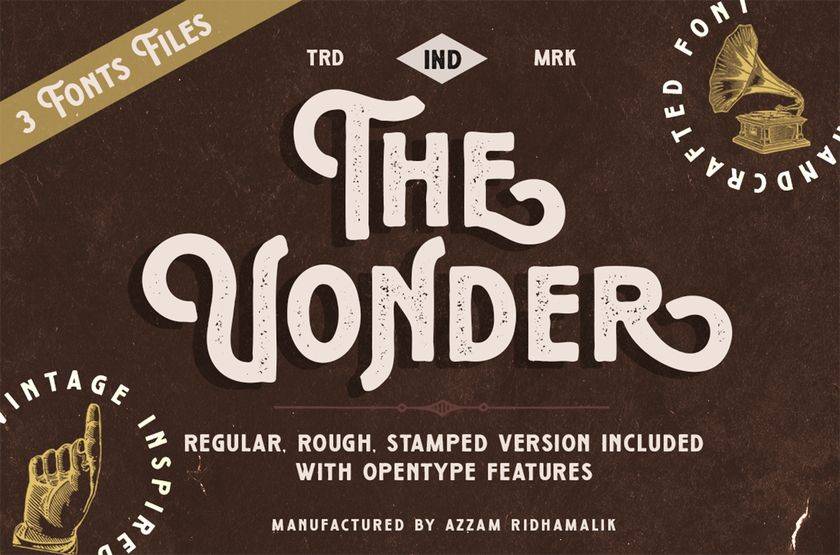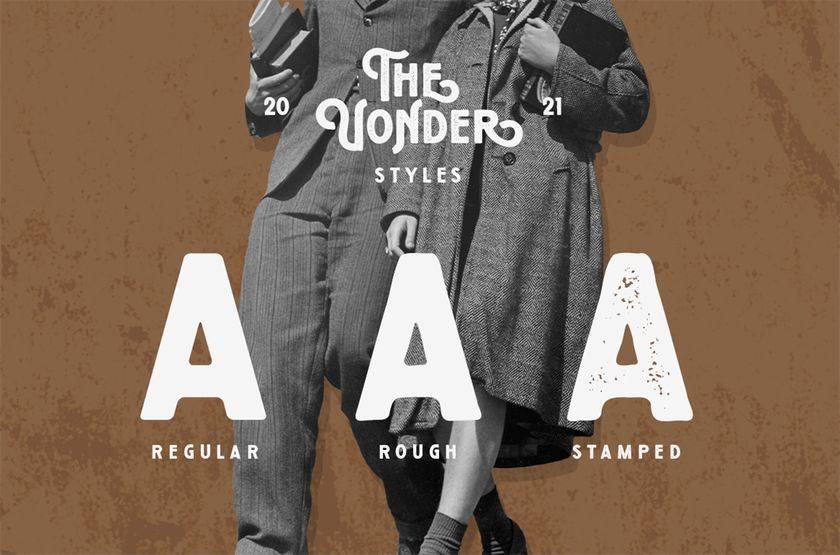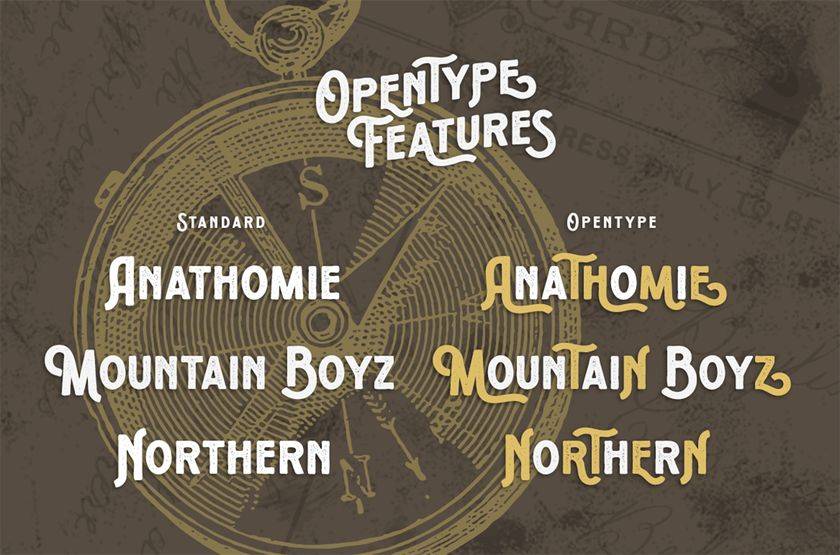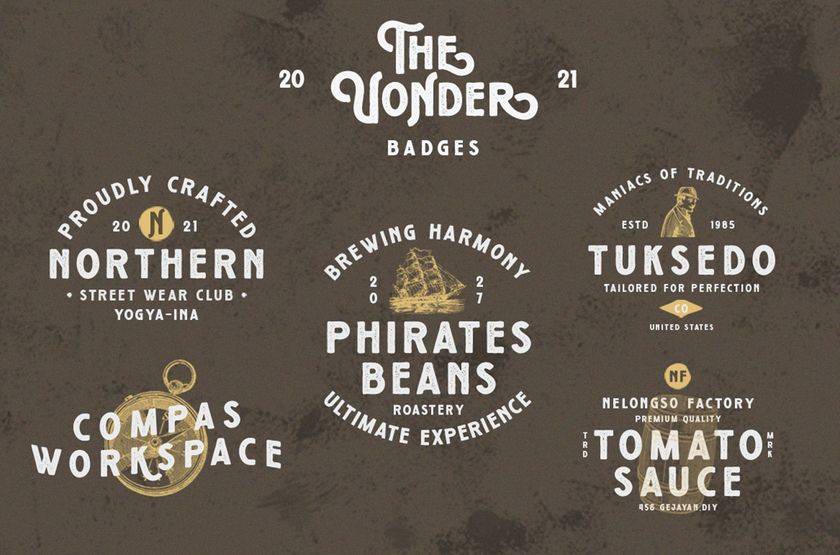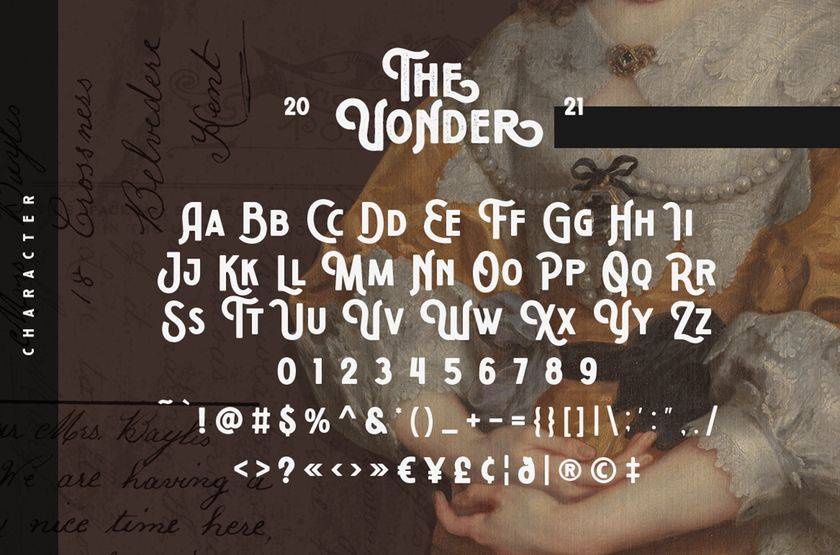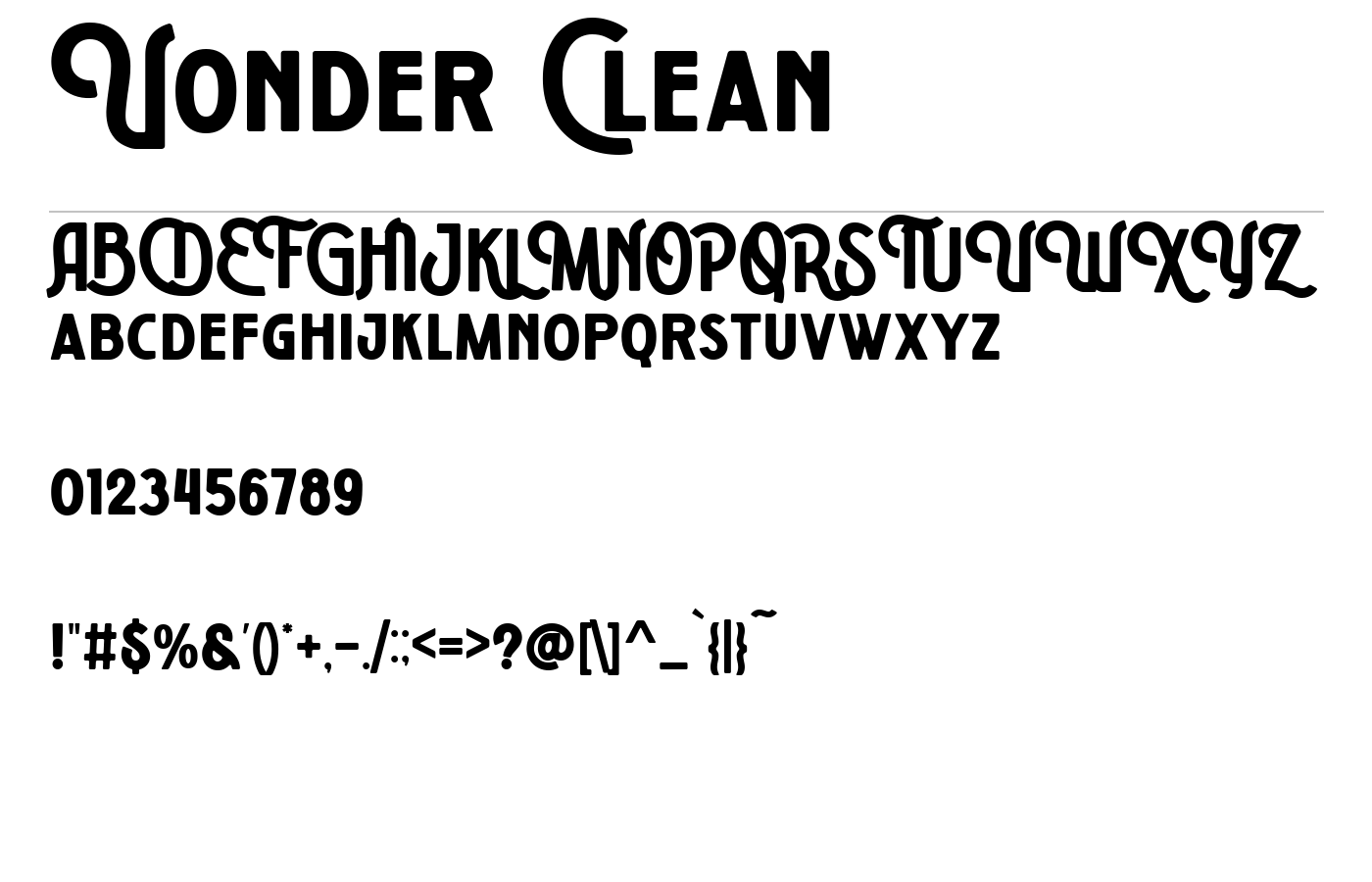
Vonder is a bold sans serif font with a playful, retro flair highlighted by its rounded shapes and quirky alternates in uppercase. Its sturdy, slightly condensed letterforms with consistent stroke weight convey a friendly yet confident personality, making it ideal for eye-catching headlines, logos, and branding that want a vintage yet approachable vibe. This font works especially well for creative projects that balance fun and clarity with a unique twist.
| Font family | Vonder Font |
| Release date | 2021-06-05 |
| Designer | Azzam Ridhamalik |